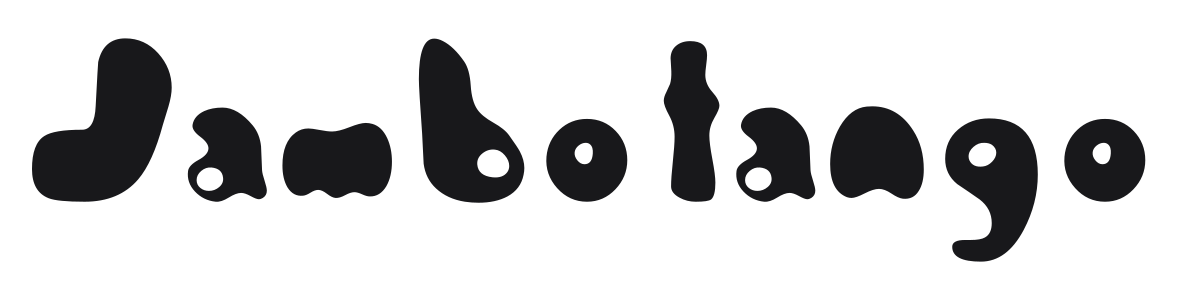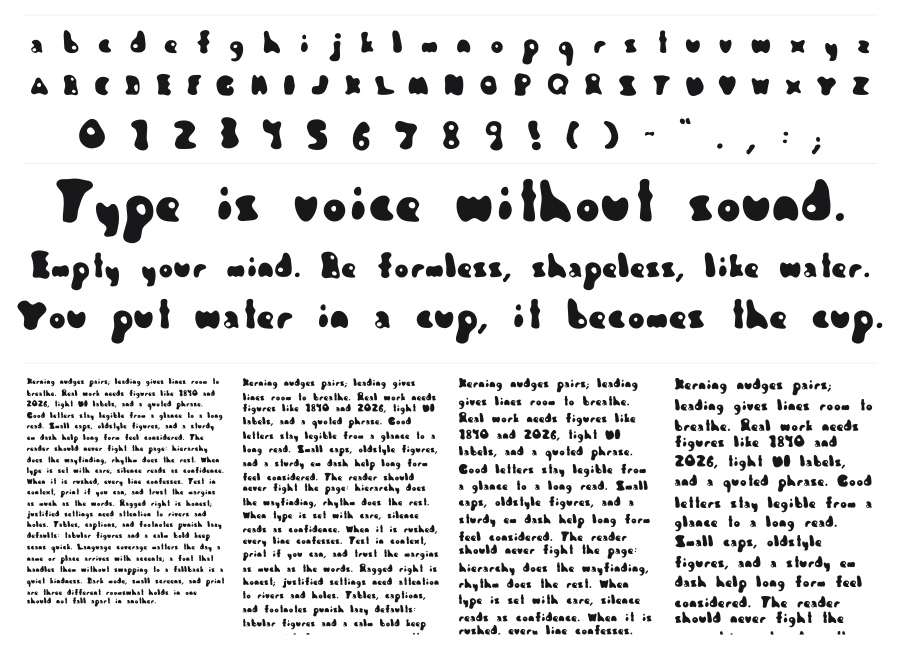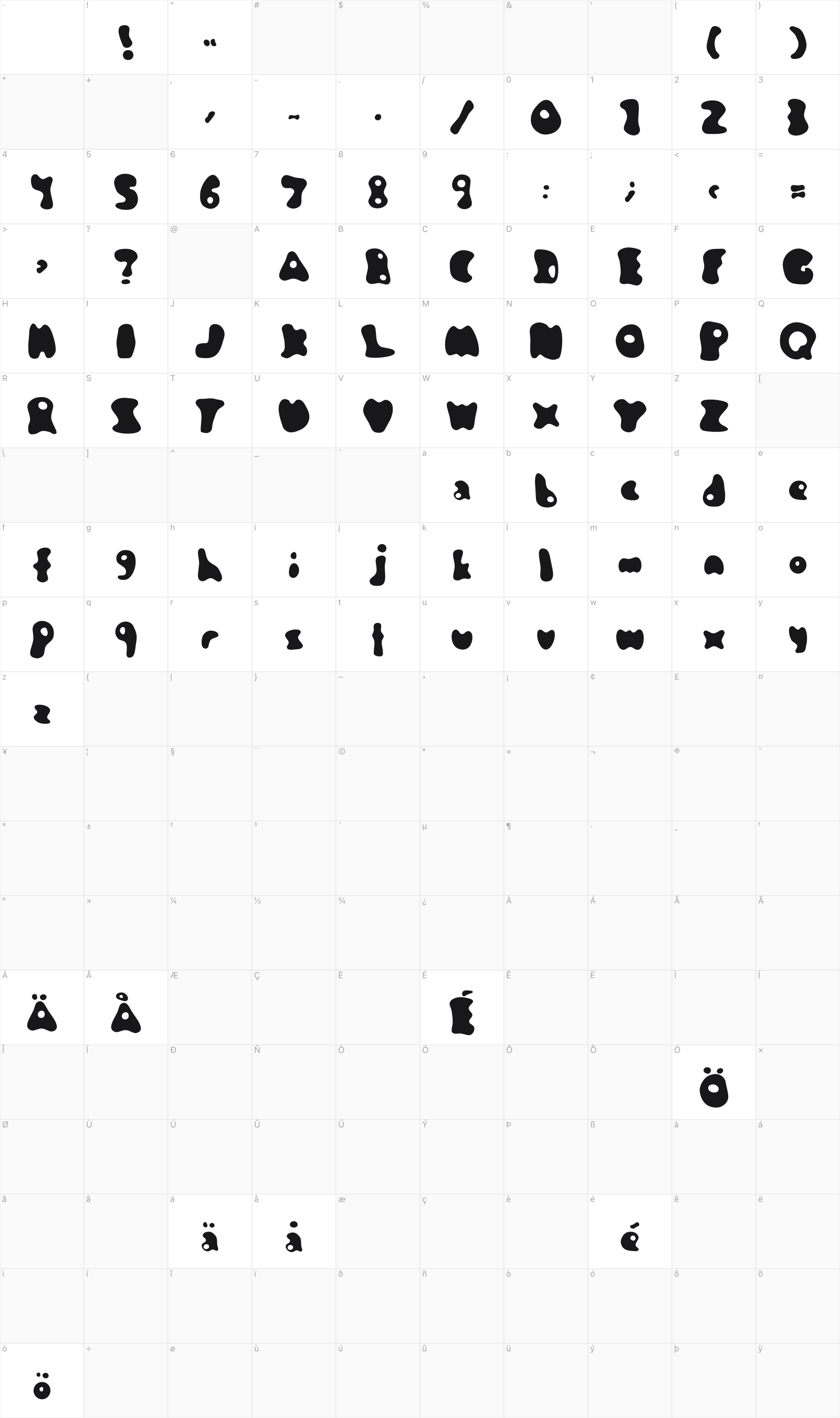
Jambotango
Jambotango is a heavy, blob-like display font where thick rounded strokes swell and merge into pudgy, inflated characters. The design pulls directly from late-1960s psychedelic poster typography, with virtually no internal counters and a molten, bubbly quality. It works best at large sizes where its chunky personality can fully register.